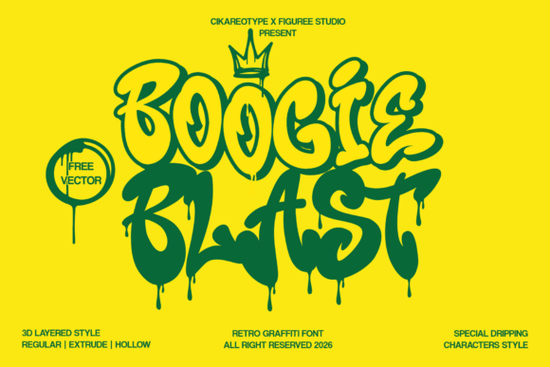
If you're working on a project that needs bold, nostalgic street energy think concert flyers, skate shop logos, or urban apparel designs the Boogie Blast Font brings that unmistakable 90s graffiti vibe with modern flexibility. It’s not just another display font; it’s built for creators who want their visuals to feel alive, layered, and authentically expressive.
What makes Boogie Blast stand out is how it captures the raw spirit of street art without sacrificing usability. The letterforms are bouncy and dimensional, complete with optional “dripping” effects that echo classic spray-paint throw-ups. Whether you’re designing merch for a local band or crafting social posts for a streetwear brand, this font delivers instant attitude while remaining surprisingly versatile.
Why choose Boogie Blast over other retro fonts?
Many retro-inspired fonts lean heavily into nostalgia but fall short in practicality either too rigid, too thin, or lacking stylistic options. Boogie Blast solves that by offering three distinct styles in one package:
- Regular: The core version with full 3D layering and drip details.
- Extrude: Adds depth and shadow for a popping-off-the-page effect.
- Hollow: A lighter, outlined take that works well over busy backgrounds or photos.
This variety means you can maintain visual consistency across different mediums say, a bold logo using Extrude, paired with Hollow for secondary text on a T-shirt design without switching typefaces.
If you’ve used fonts like Rough Bold for gritty headlines or Rotzky for playful signage, Boogie Blast complements those aesthetics while leaning harder into urban culture. It also pairs well with cleaner sans-serifs if you need contrast, much like how Aspen balances boldness with readability in mixed-type layouts.
Who is this font really for?
Boogie Blast shines in hands-on creative work:
- Print-on-demand sellers creating limited-edition hoodies, stickers, or posters with street-art flair.
- Small music venues or DJs promoting events with eye-catching digital or print assets.
- Crafters and hobbyists making custom signs, tote bags, or wall art inspired by 90s hip-hop or skate culture.
- Graphic designers building brand identities for urban cafes, sneaker boutiques, or youth-focused brands.
It’s less suited for body text or minimalist branding but that’s by design. Like Black Army Grunge, it’s meant to command attention in short bursts, not whisper from the background.
How to use it effectively (without overdoing it)
Because of its heavy weight and detailed styling, Boogie Blast works best when used sparingly:
- Limit it to headlines, logos, or single words. A full paragraph in Boogie Blast can overwhelm viewers.
- Pair it with neutral, clean fonts. Try combining it with something like Mobie for supporting text to keep your layout balanced.
- Use color thoughtfully. Neon pinks, electric blues, or stark black-and-white schemes enhance its retro energy without clashing.
- Test at different sizes. The drips and layers read best at larger scales ideal for posters, banners, or product mockups.
Final tip before you download
Before committing, consider your project’s tone. Boogie Blast radiates confidence, rebellion, and fun but only if that matches your message. If you’re aiming for elegance, corporate polish, or quiet minimalism, fonts like Aspen or Mobie might serve you better. But if your work thrives on rhythm, texture, and urban soul, this font could become a go-to in your toolkit.
Quick checklist before using Boogie Blast:
- ✅ Is your project short-form (logo, title, tagline)?
- ✅ Does your brand or client embrace bold, youthful, or street-influenced aesthetics?
- ✅ Have you tested it alongside a clean secondary font?
- ✅ Are you using it at a size where details (like drips) remain legible?
If you answered yes to most of these, Boogie Blast is ready to bring your next design to life with volume turned all the way up.